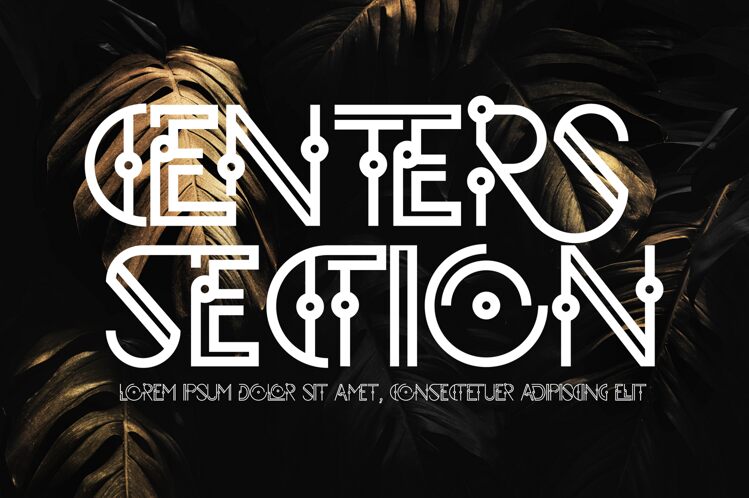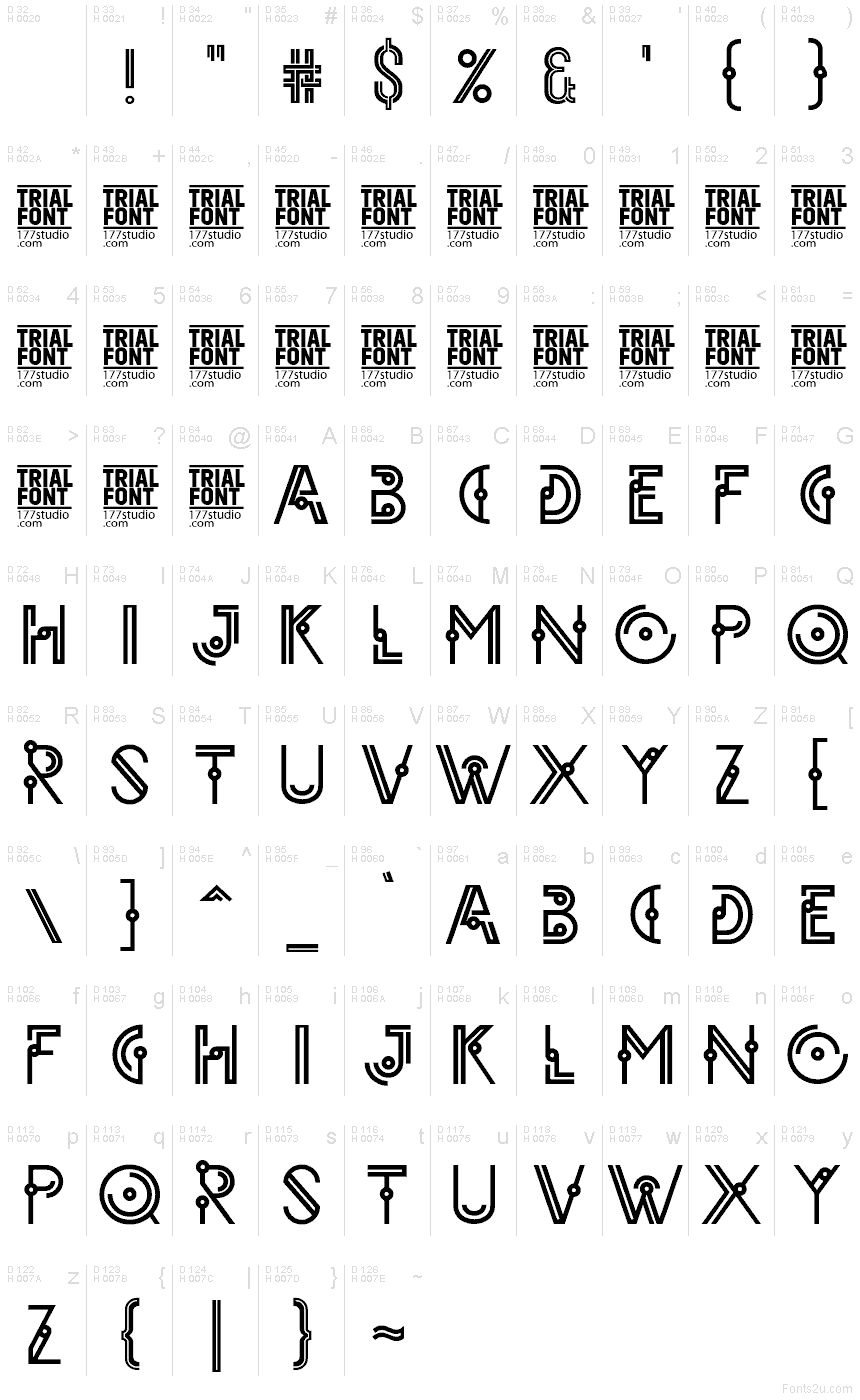
CENTERS SECTION DEMO Regular
Centers Section font by 177Studio is a free decorative display typeface that looks like circuitry drawn by hand—thin black strokes split into segments, connected by circular “nodes” that feel both retro and futuristic. The rhythm is tight and linear, so words lock together like a sleek, neon sign, while the built-in gaps keep the letters light and airy instead of heavy or cramped.
Using Centers Section, headlines instantly gain a sci-fi, cyber-lab energy that stands out on tech posters, gaming covers, electronic music flyers, event branding, and experimental logo work. This free font shines at large sizes where its geometric breaks and dots stay crisp, and it pairs smoothly with a simple geometric sans-serif for smaller text to keep layouts readable and polished.